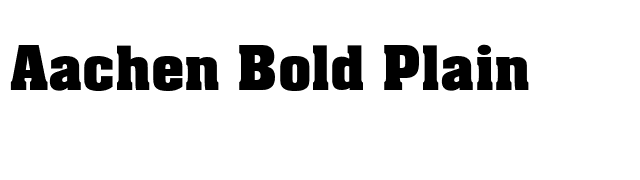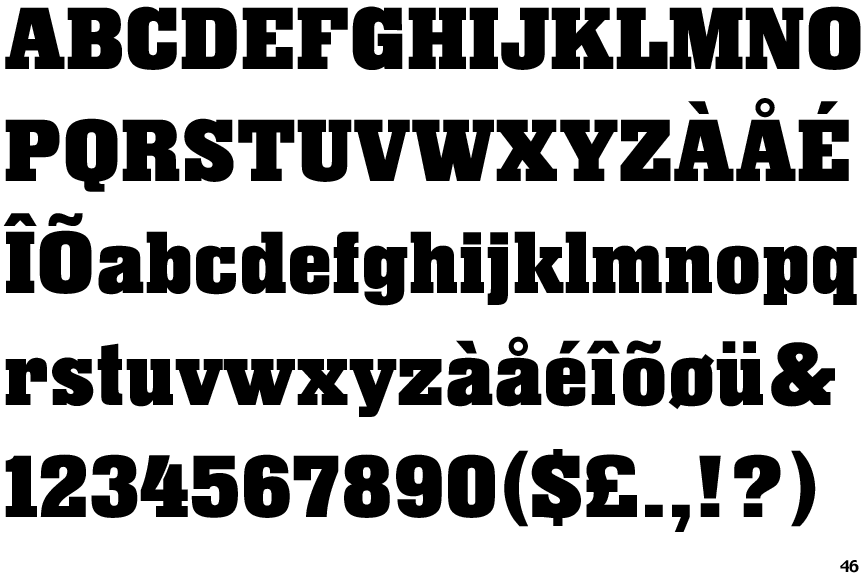
Aachen Bold Plain Font Download. This entry was published on wednesday,.download aachen bold plain font at fontsmarket.com, the largest collection of amazing freely available fonts for windows and mac.download fonts, free fonts, zephyr font, microsoft fonts, gothic fonts, scary fonts format download font ttf truetype aachen bold regular download font.download aachen font. Slab serif, heavy, initials, college, black, bold
This font is known to be a bold typeface that also contains stuffy serif and also heavy strokes this. Aachen bold plain regular is a regular opentype font. We have a huge collection of around 72,000 truetype and opentype free fonts, checkout more on fontpalace.com